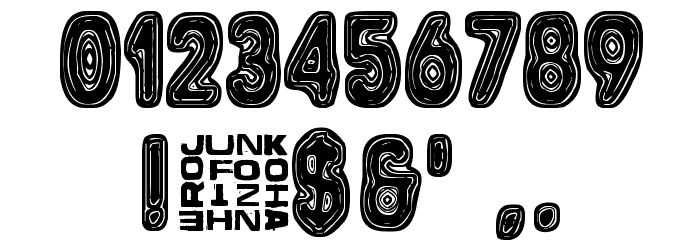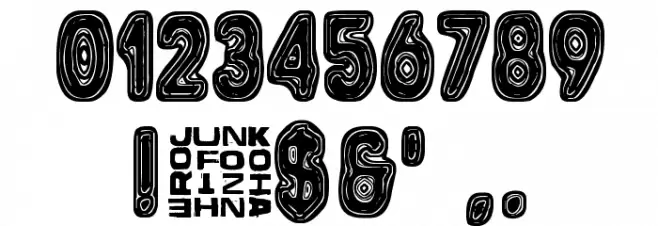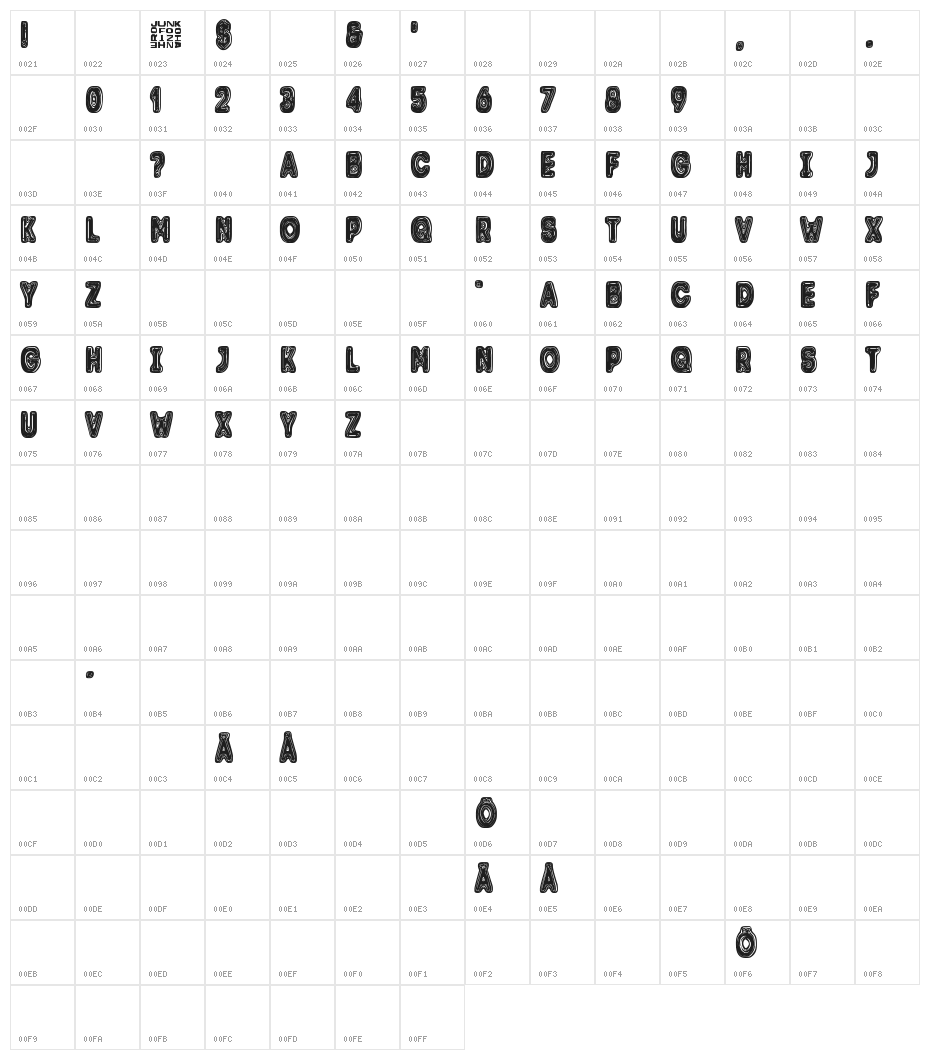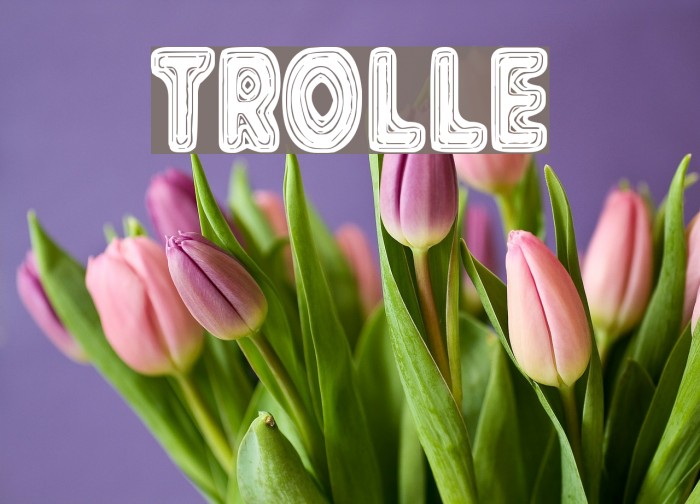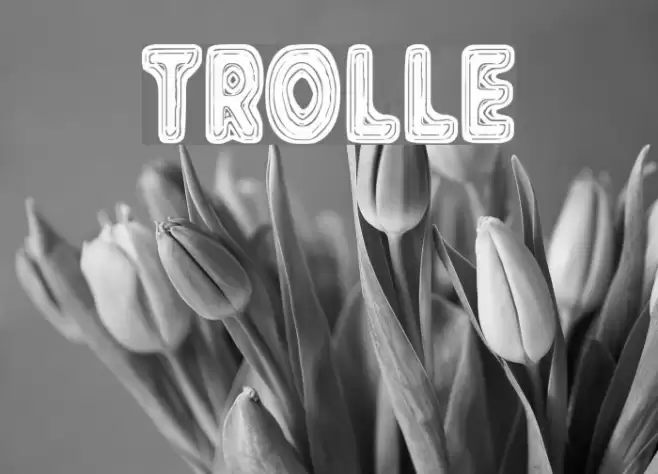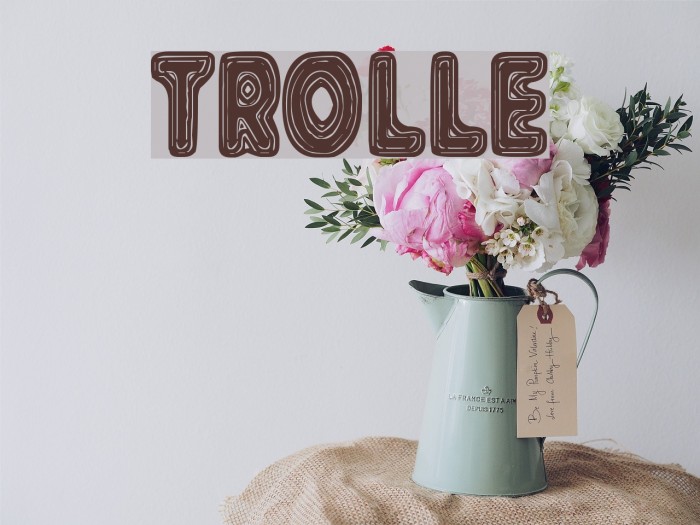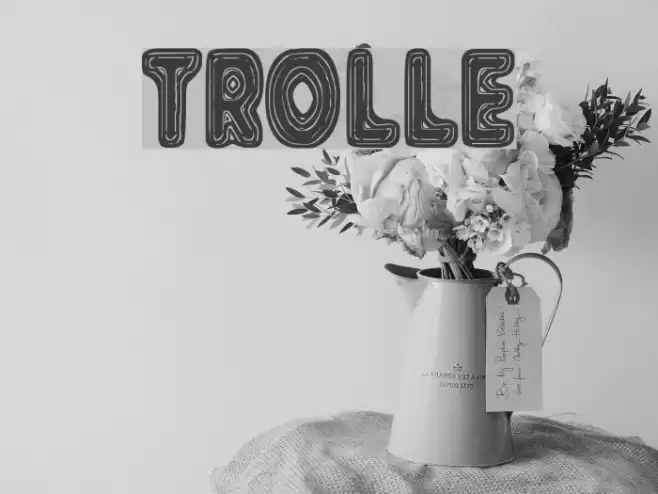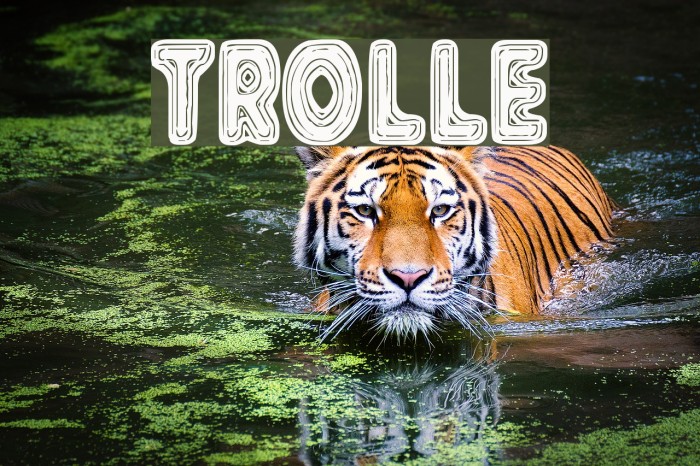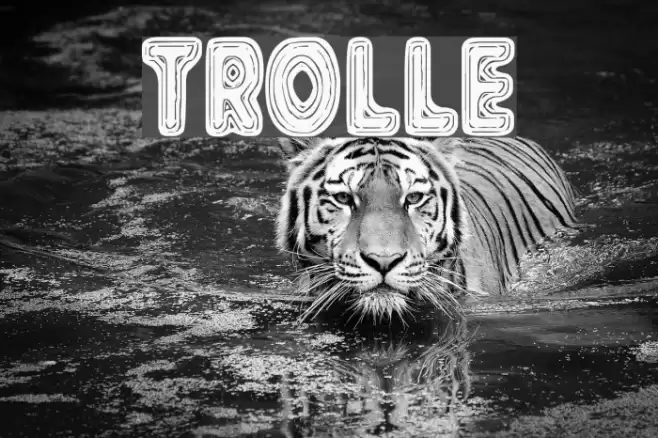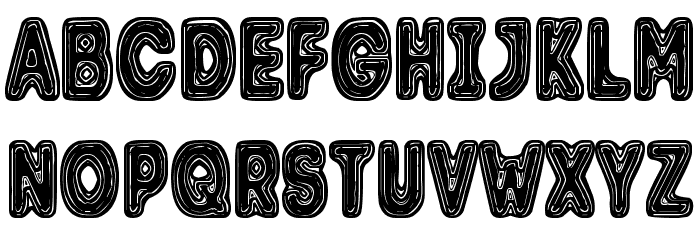
Trolle Font
Trolle Description
This font features a bold, decorative style with a unique outline effect that gives each character a layered appearance. The letters are uppercase and lowercase, with a consistent thickness that creates a strong visual impact. The numbers and special characters maintain this bold style, ensuring uniformity across all glyphs. The font's playful and artistic design makes it stand out, with each character appearing as if it has been carefully crafted with multiple layers. This layered effect adds depth and dimension, making it suitable for eye-catching designs.
| Proposed Projects | Ideal for posters, headlines, logos, and any project requiring a bold, artistic touch. |